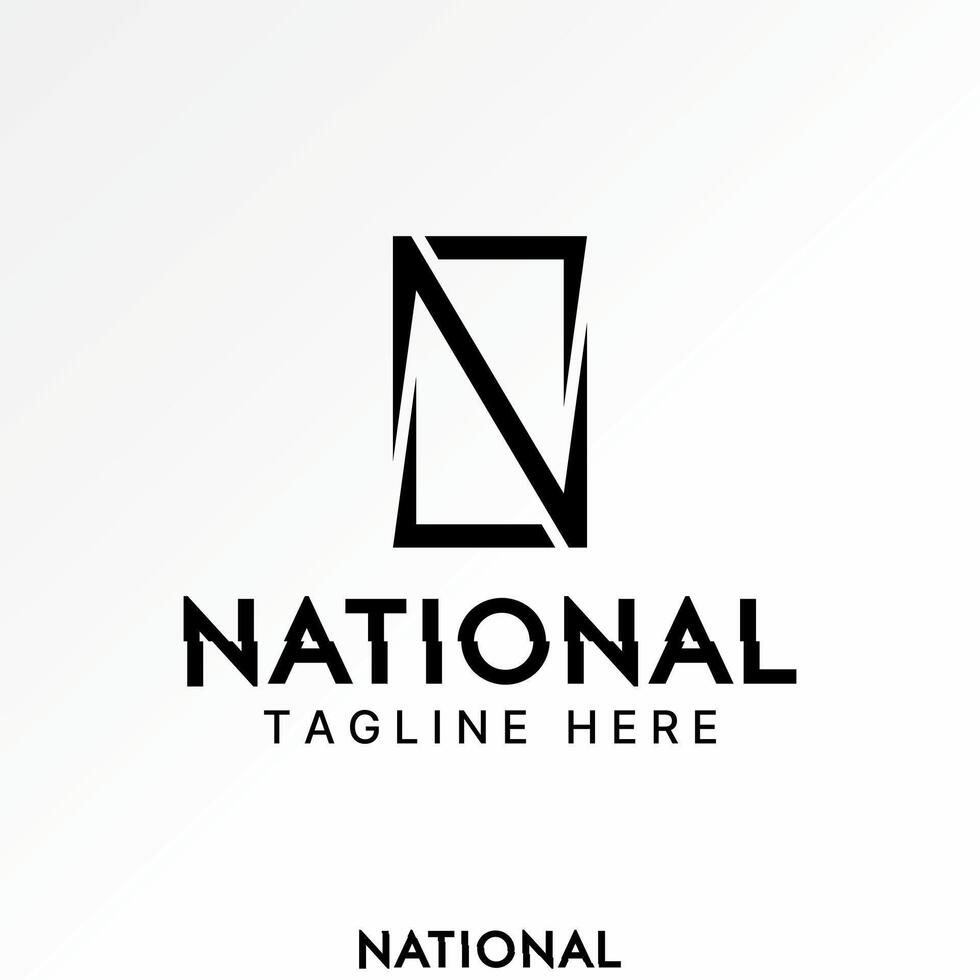
Logo design graphic concept creative premium stock image graphic initial N or Z line font square window infinity to monogram typography house Pro Vector